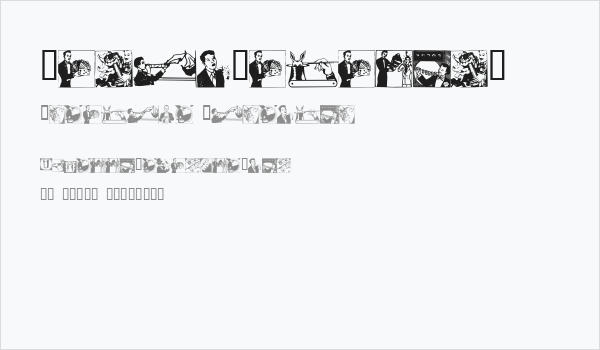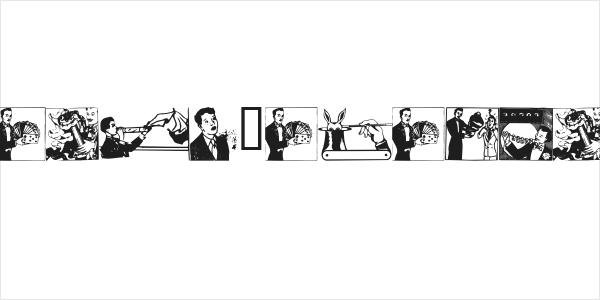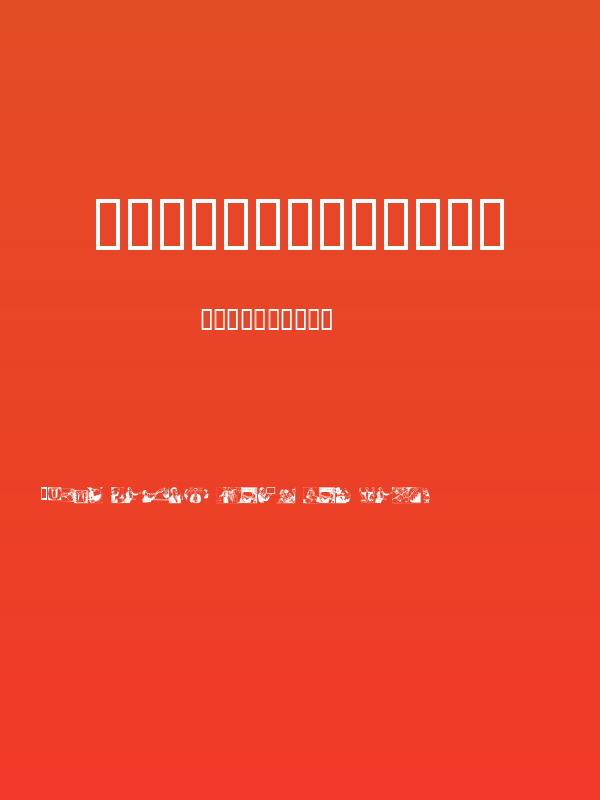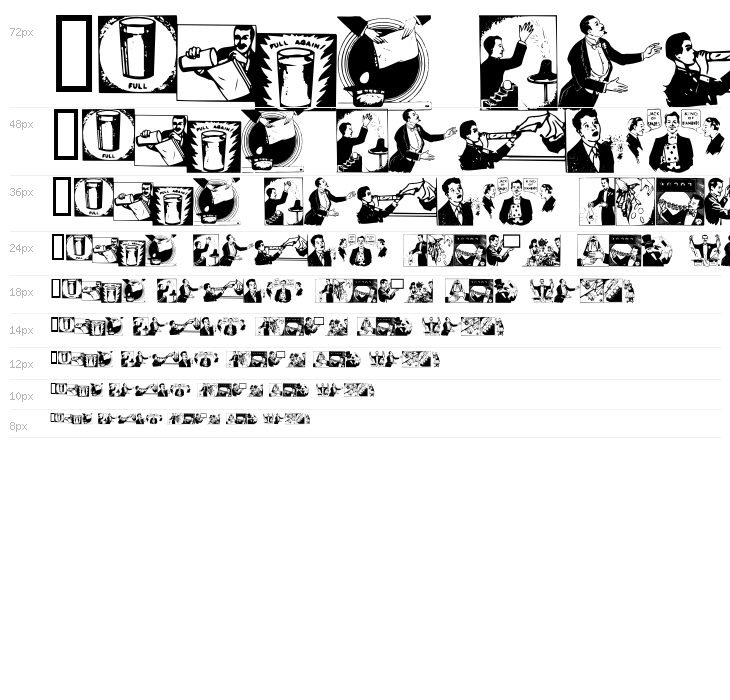
MagicCatalog1 Font
MagicCatalog1 Description
A decorative dingbat font featuring black-and-white comic-style illustrations of magicians, magic tricks, and stage performances. Each character is represented by a unique scene or figure related to classic magic acts, rendered in a vintage, detailed line art style.
| Overall Style | Vintage, Decorative |
| Use Case | Decorative elements, Themed graphics, Event promotion |
| Proposed Projects | Posters for magic shows, themed party invitations, event flyers, scrapbooking, novelty merchandise, and educational materials about magic. |